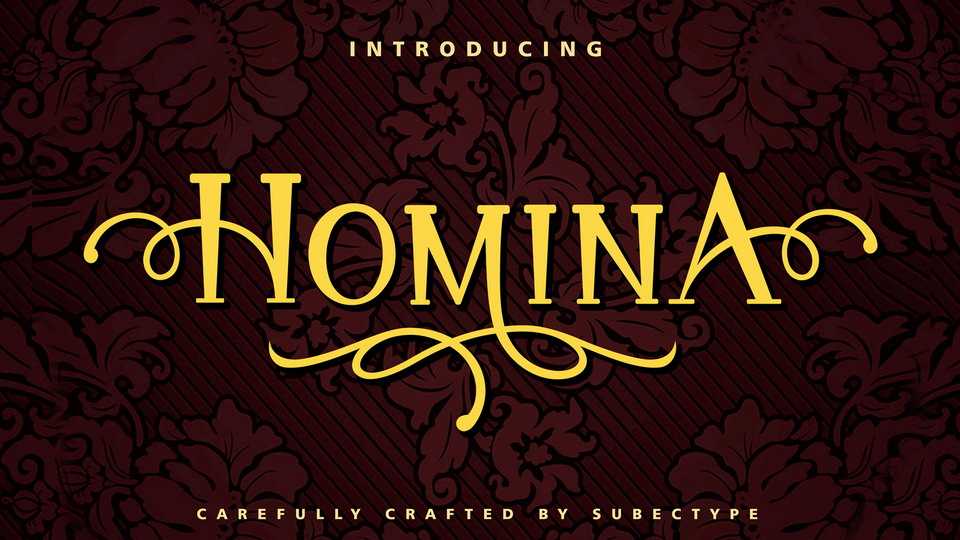
Download Homina font, a fancy display typeface with tons of cool characters. Homina is perfect for quotes, logos, apparel, advertising, wedding invitations and packaging designs.
Designer: Subectype